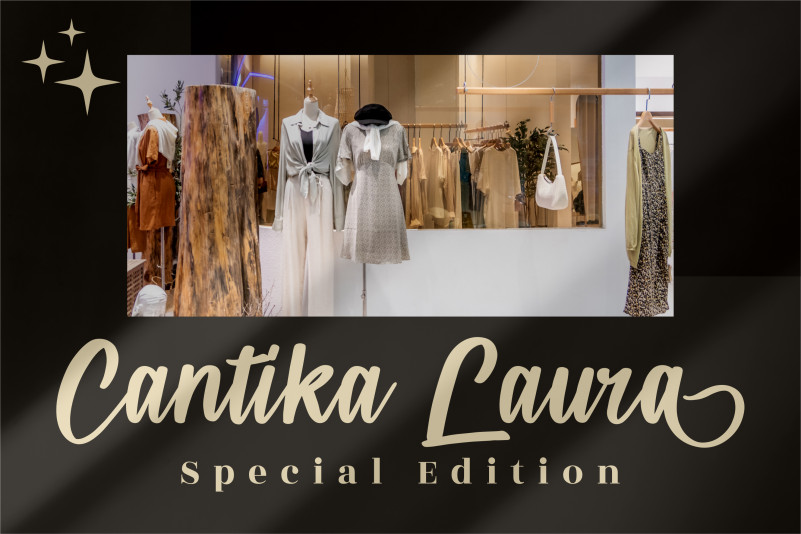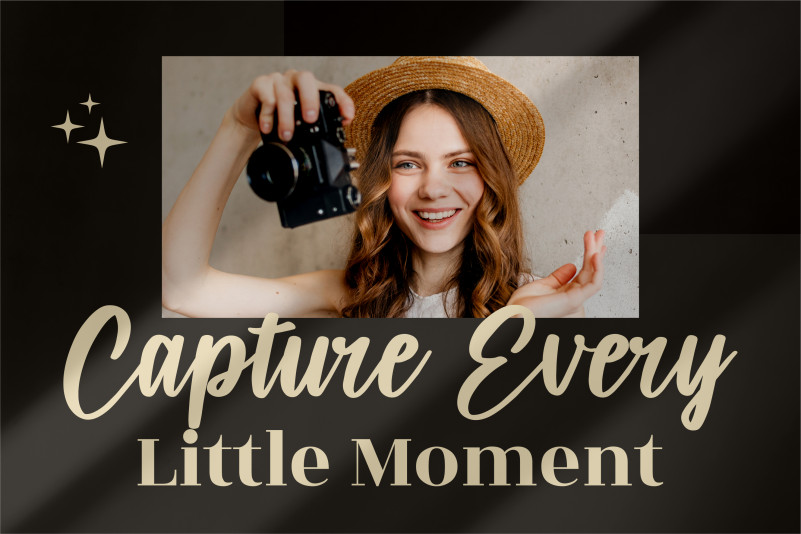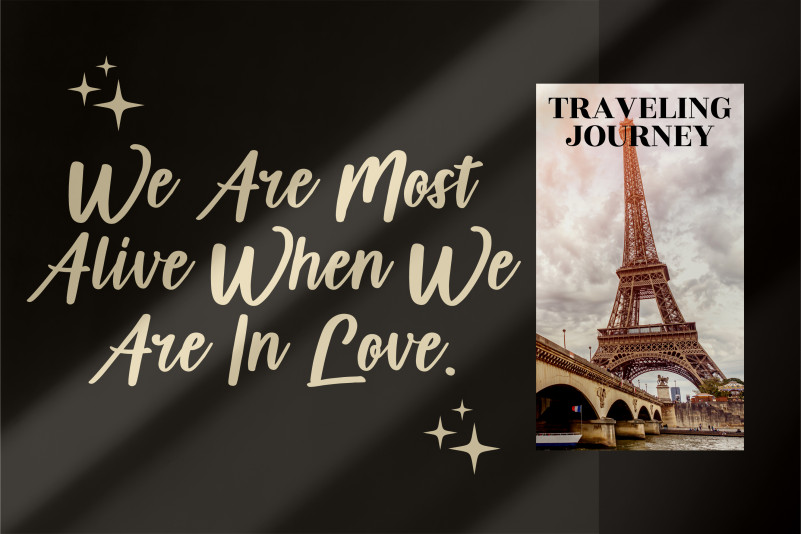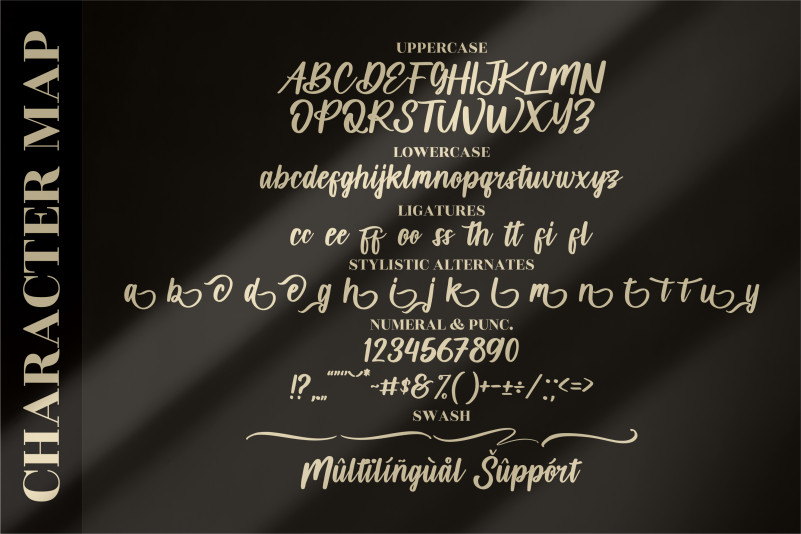
Balencia Lattive Font
Balencia Lattive Script Font
It’s a premium signature font, suitable for any projects such as: logos, branding projects, homeware designs, product packaging, mugs, quotes, posters, shopping bags, t-shirts, book covers, name card, invitation cards, greeting cards, label, photography, watermark, special events, and all your other luxury projects that need a premium signature taste.